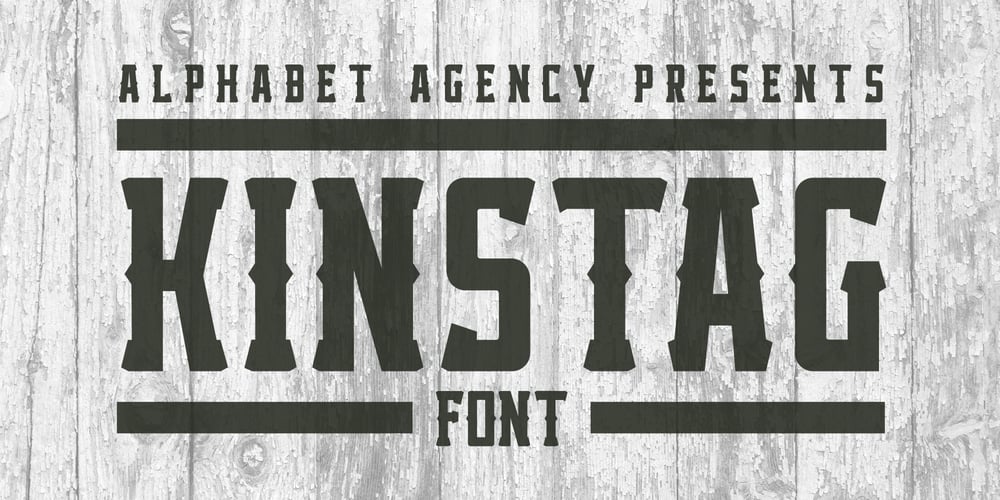
Kinstag Font Family was designed by Swinn Jonathan and published by Alphabet Agency. Kinstag contains 1 styles and family package options. Kinstag is a all caps serif display font. The typography was originally developed during work on a country rock music project. The initial characters were then evolved into a workable font for use in rural, rustic, vintage, outdoor and adult beverage related themes.The thick serif with an angled edge is a key characteristic of the font; pairing fantastically well with the thick stems and spurs protruding from them. These elements all work together to give the font a strong bold expression as well as a unique look.